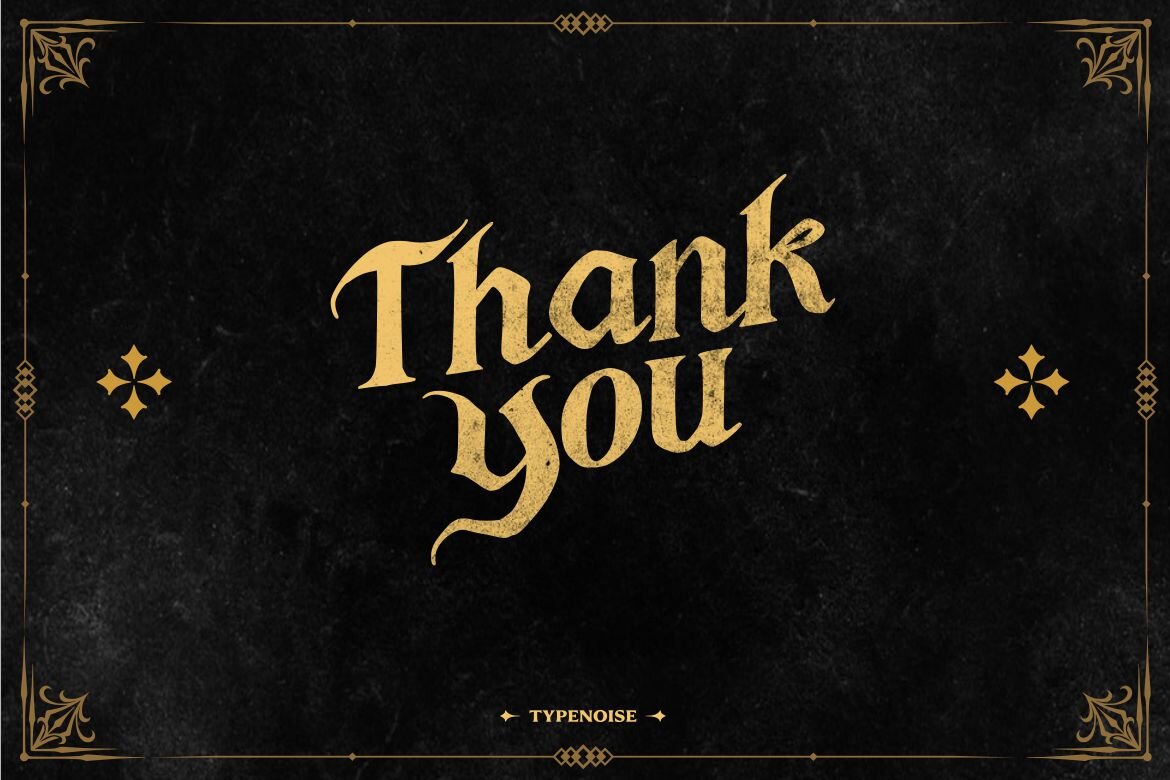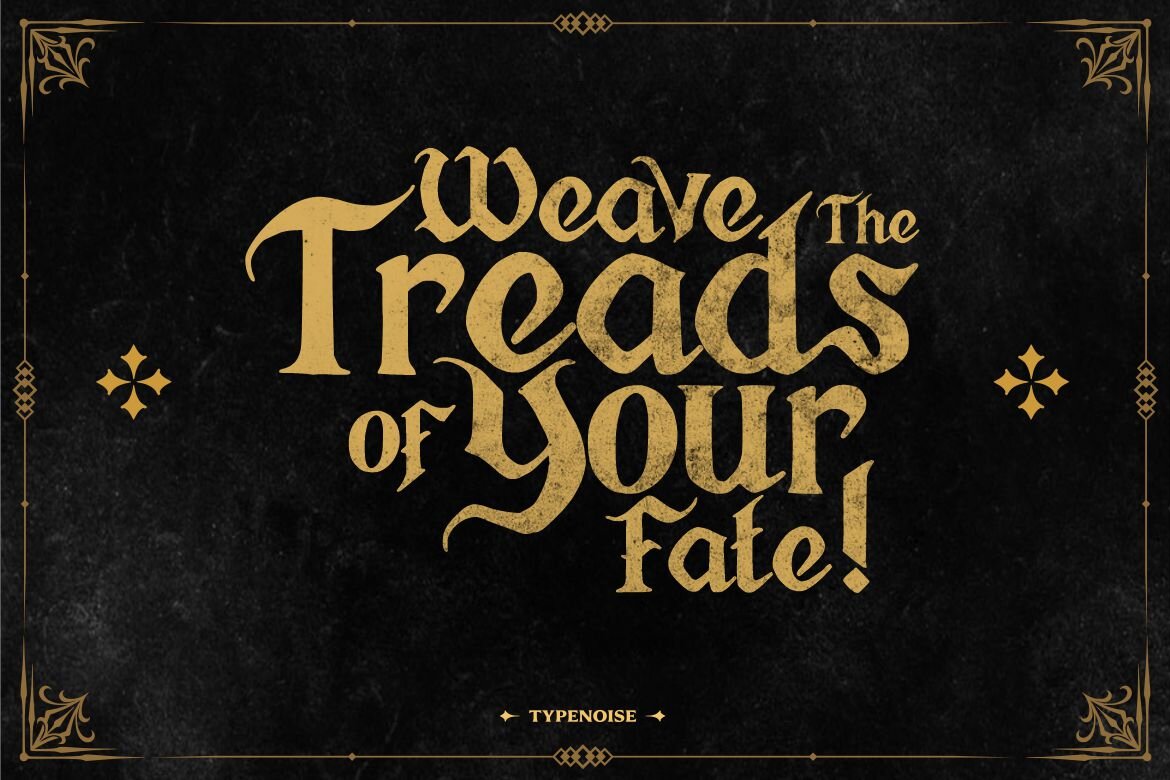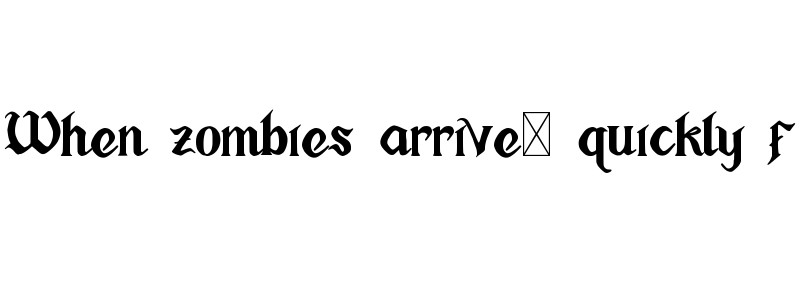
Deghas FREE Font
Introducing Deghas Vintage Gothic, an enthralling Blackletter Display Font masterfully crafted by Typenoise. Let yourself be transported back in time with the timeless elegance and classic aesthetics of this captivating typeface – practically radiating the undeniable charm and allure of the vintage gothic era. Perfect for encapsulating the soul of your design, Deghas Vintage Gothic injects character into every curve, creating a typography experience that is truly unforgettable. Skillfully produced by Typenoise, this font merges the traditional and modern, teasing timeless sophistication in every line. Embrace the striking yet elegant Deghas Vintage Gothic, and let your designs speak for themselves.